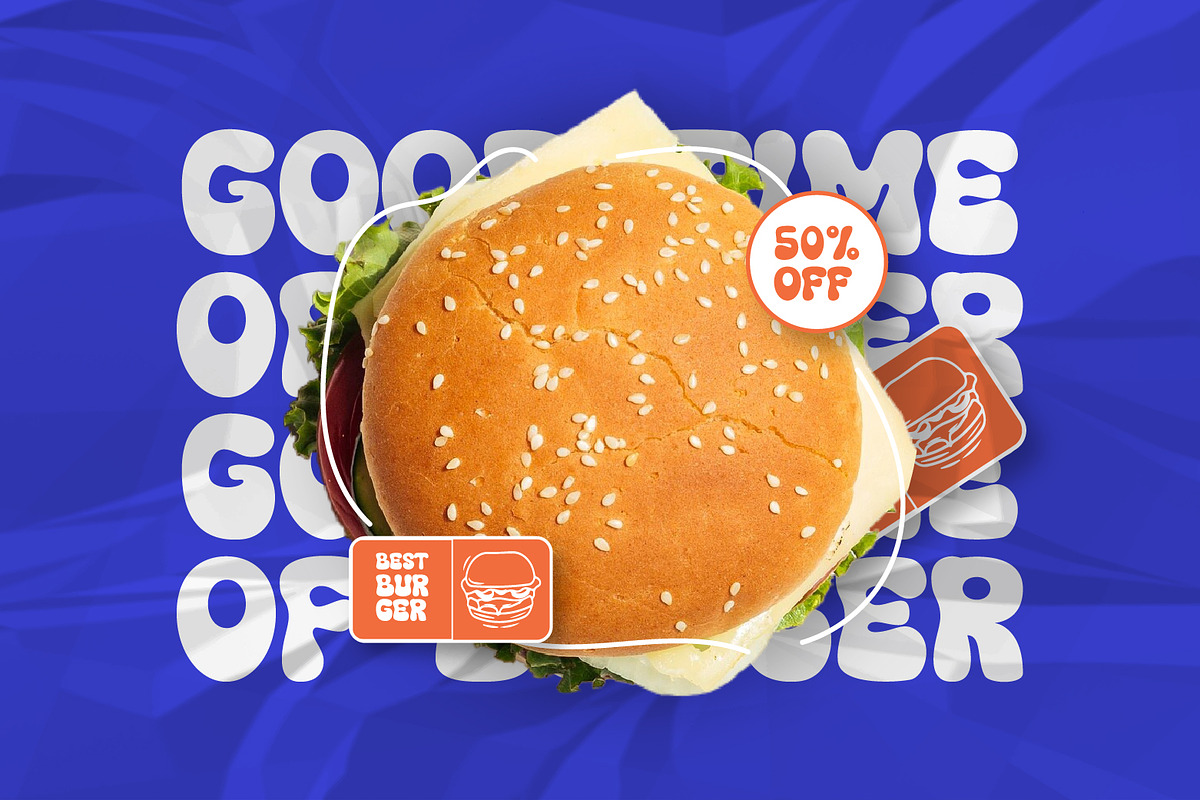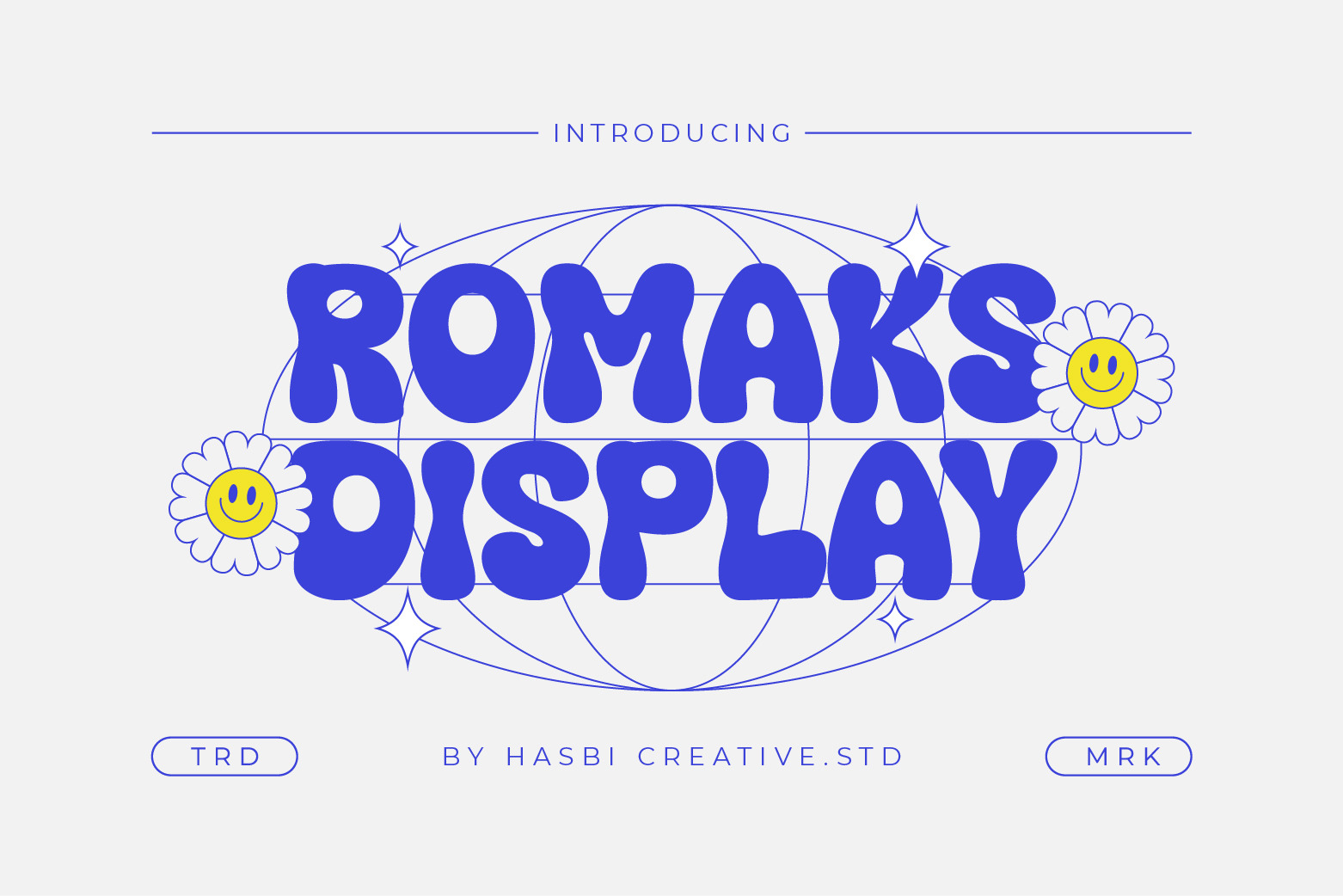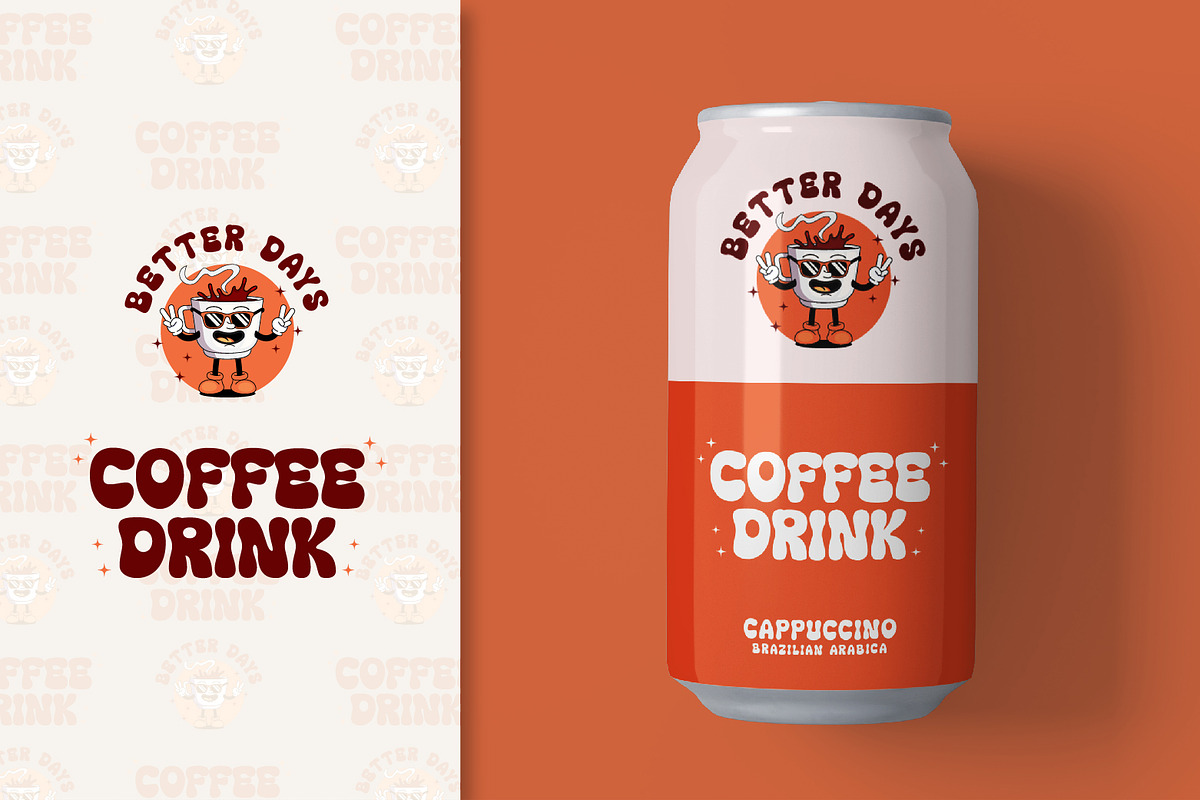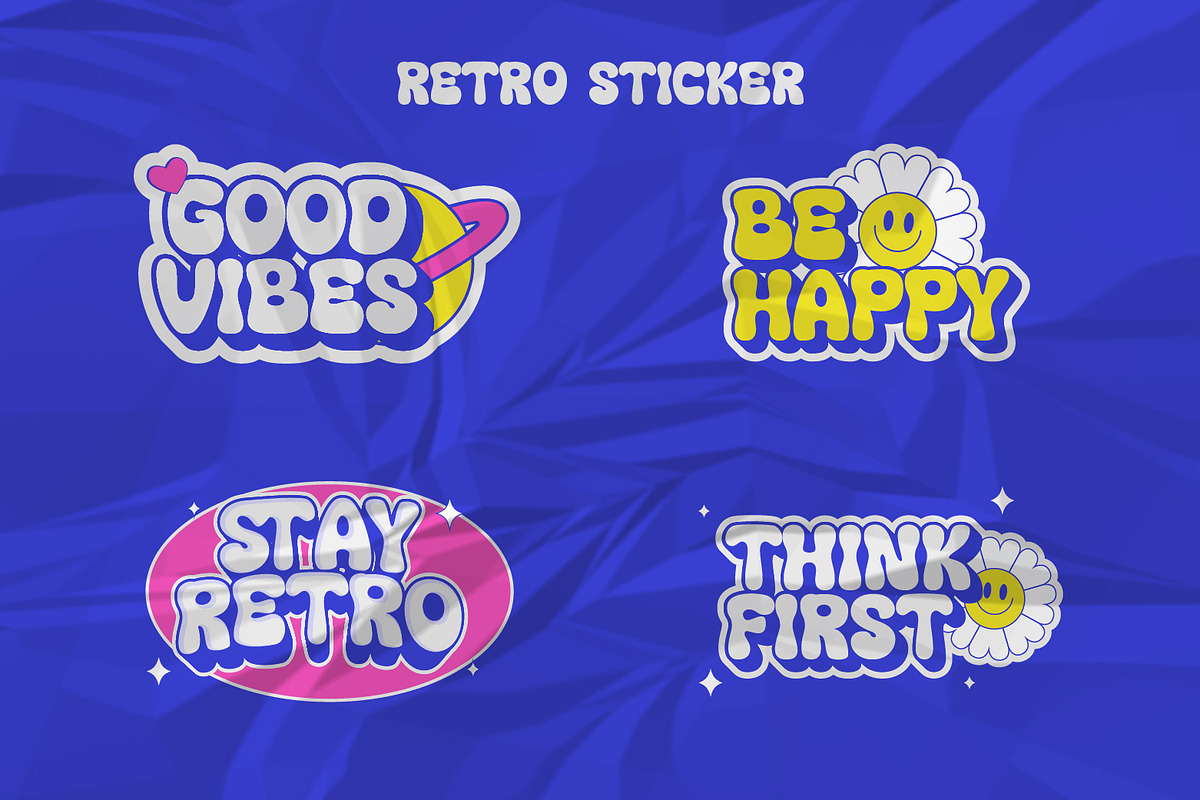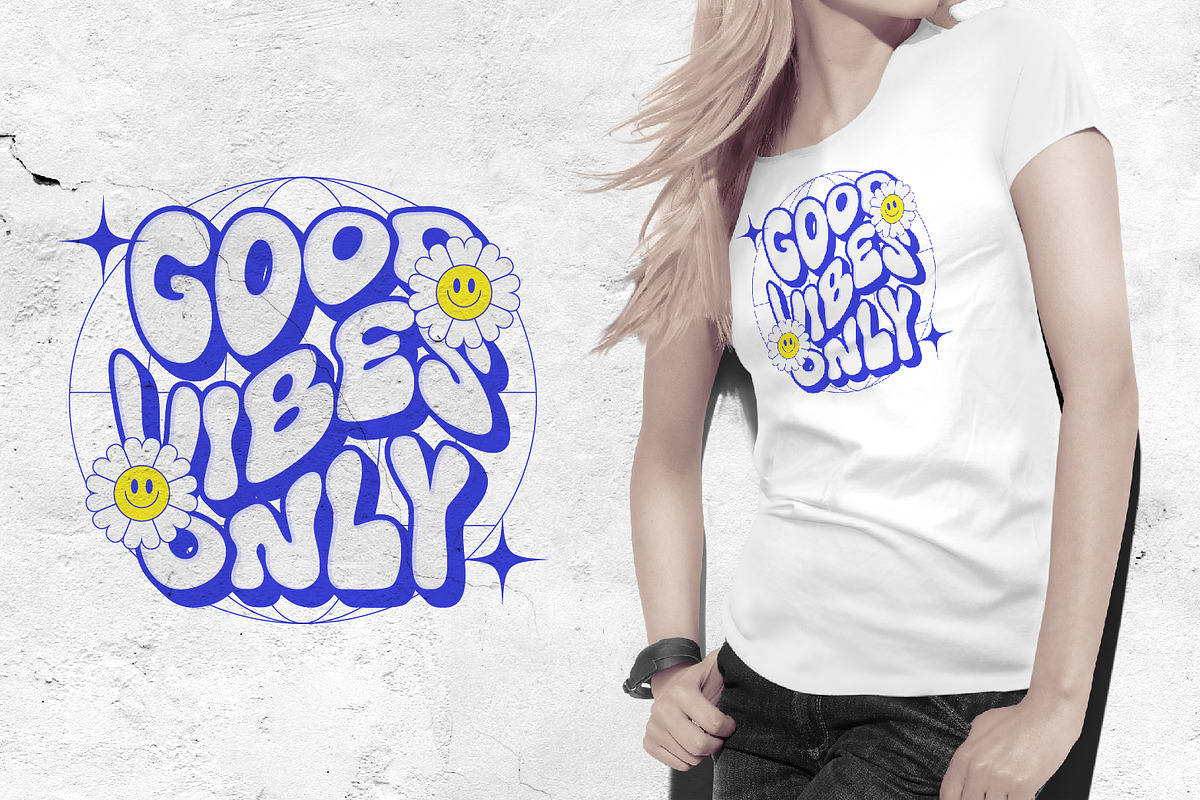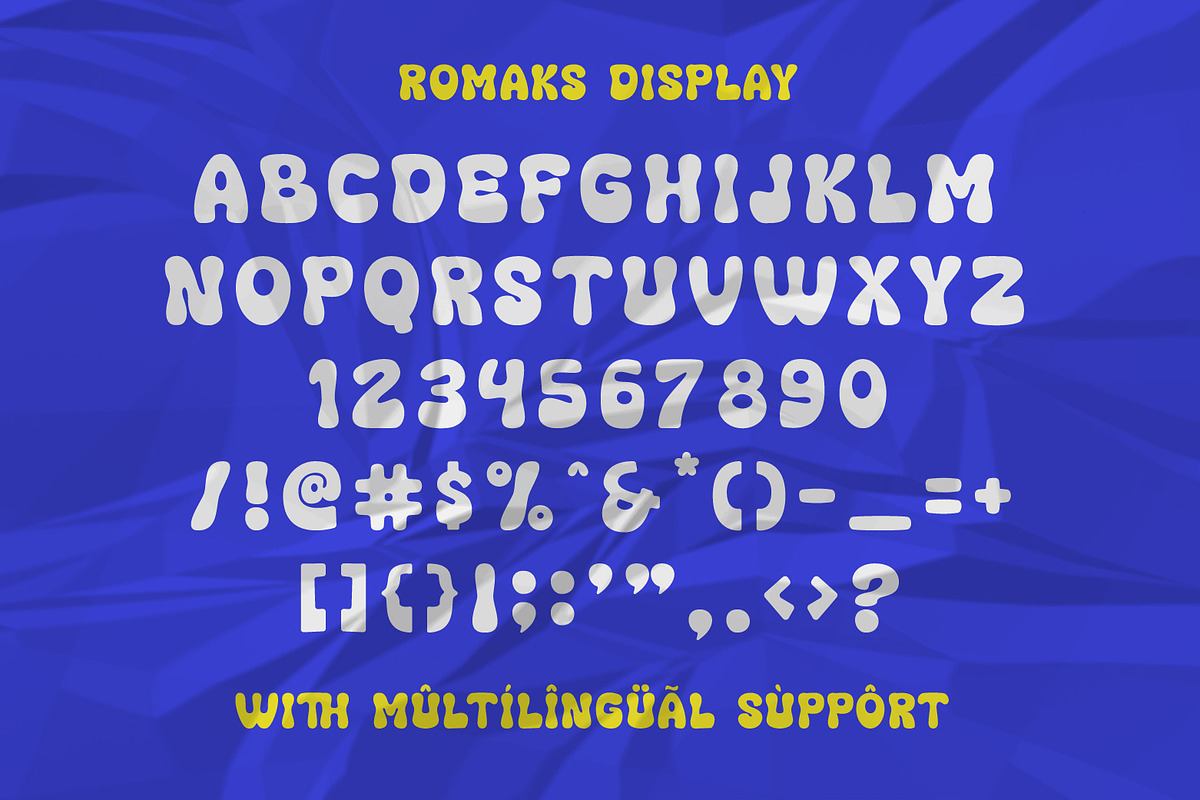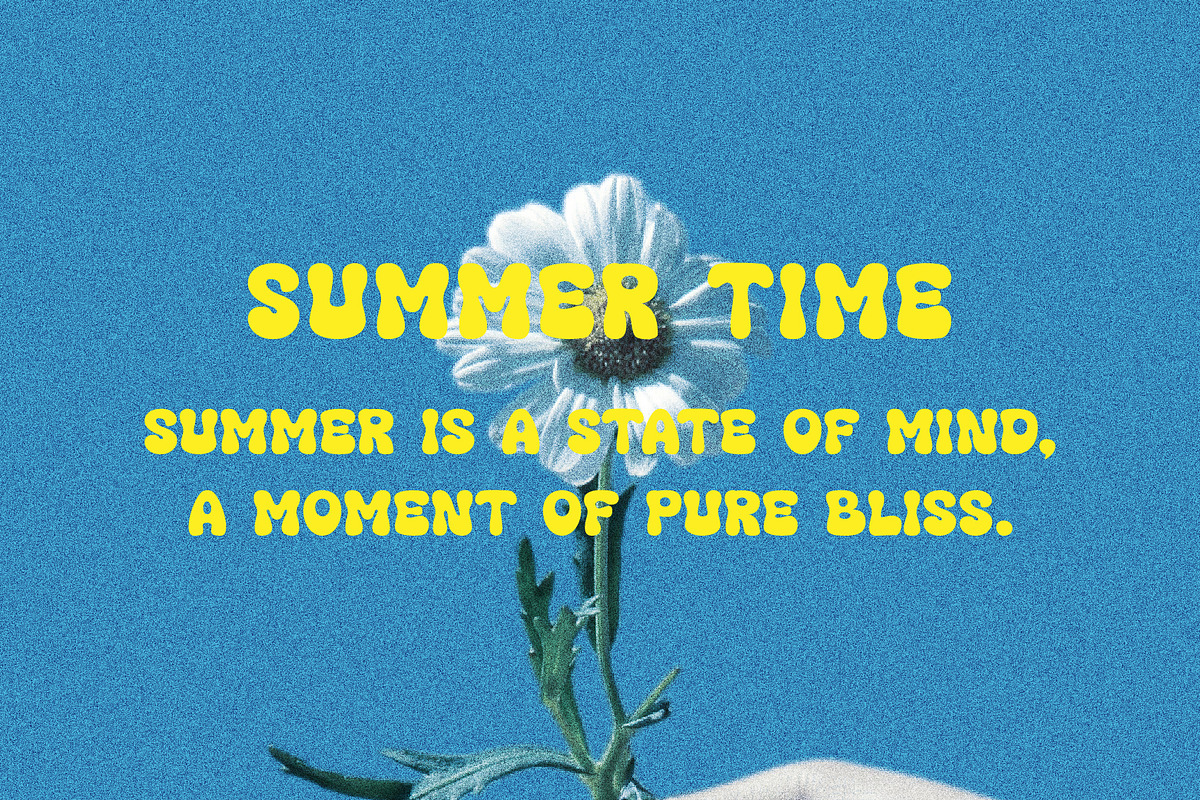
Romaks - Display Font
Embrace the captivating charm of the past with Romaks Display, a retro display font that seamlessly blends vintage aesthetics with modern sensibilities. Inspired by the bold typography of the 70s, Romaks Display brings a touch of nostalgia and personality to your creative projects.
- Unique and eye-catching
- Retro charm with a modern twist